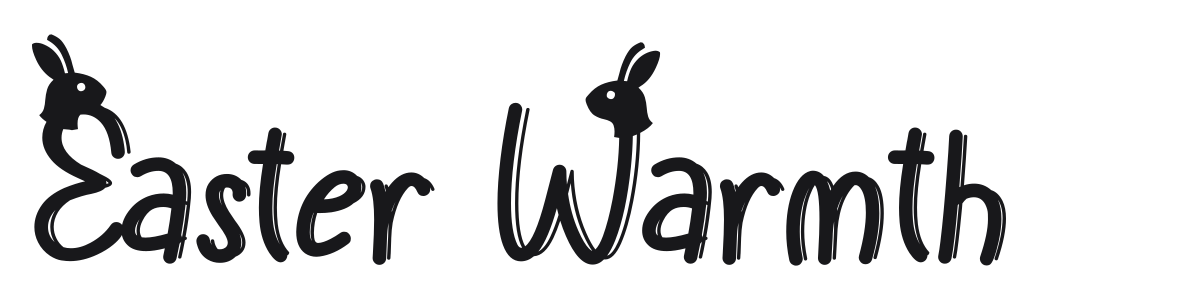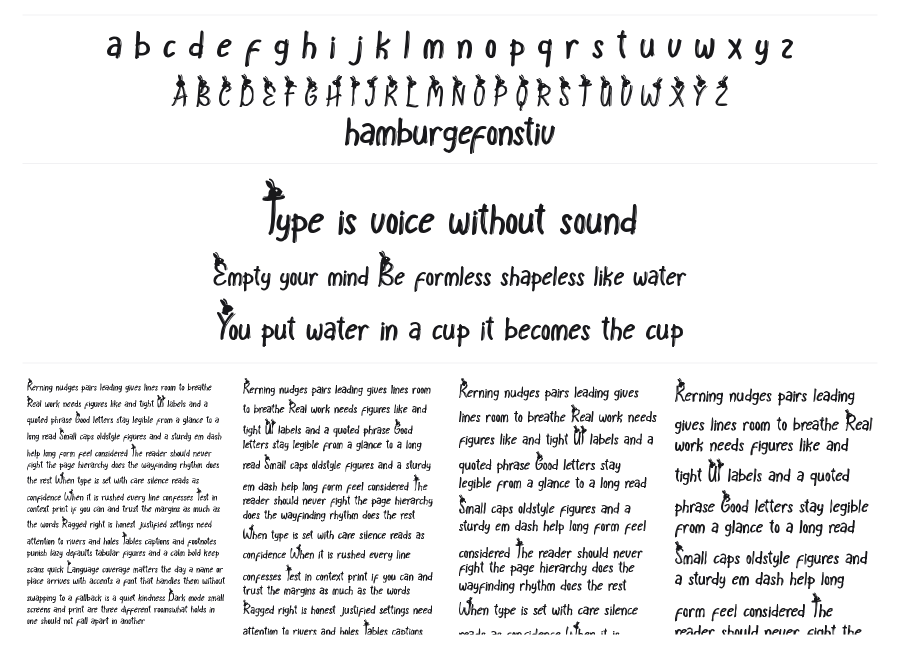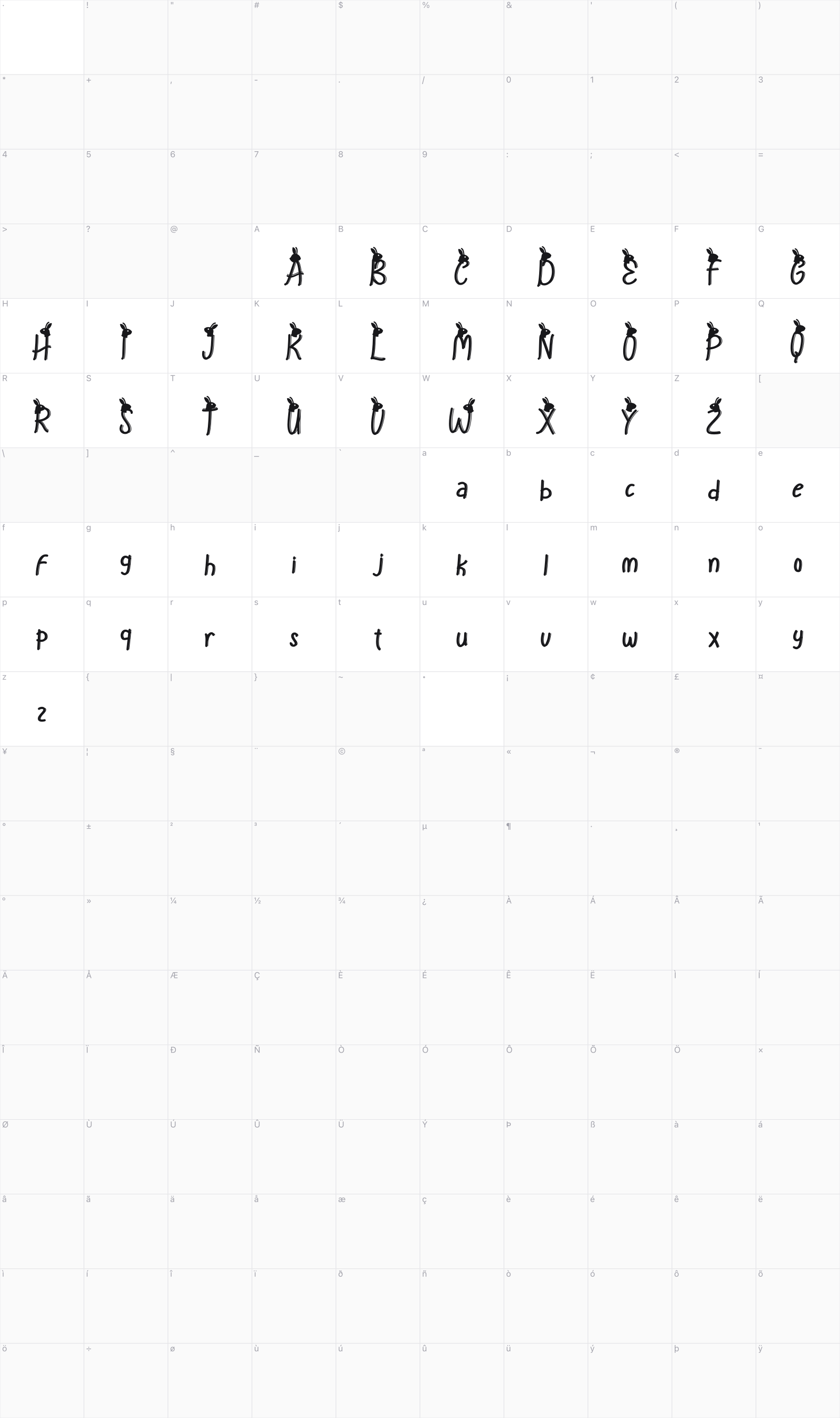
Easter Warmth
Easter Warmth is a bold, hand-drawn casual script with chunky rounded strokes and a lively bouncing rhythm. Subtle ink texture across each character keeps it feeling genuinely handmade rather than digitally smoothed. It carries a warm, cheerful energy suited to seasonal graphics, greeting cards, and festive packaging.